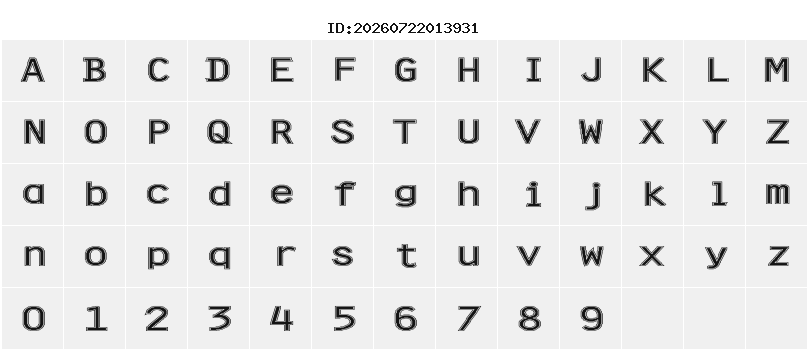
FZ DIGITAL 4 CONTOUR EX Preview
About FZ DIGITAL 4 CONTOUR EX.ttf
FZ DIGITAL 4 CONTOUR EX.ttf is a modern, elegant sans-serif font designed for ultimate readability and visual harmony. Perfect for branding, headlines, web design, and print materials.